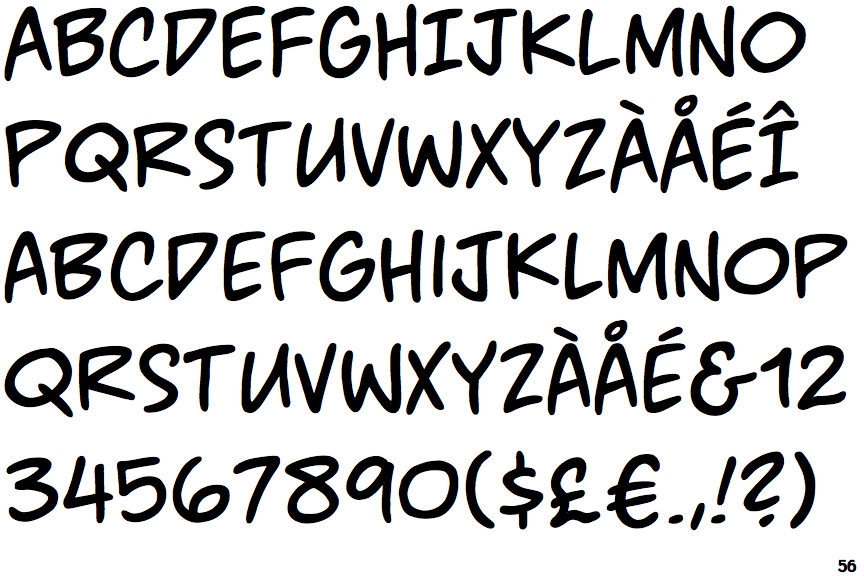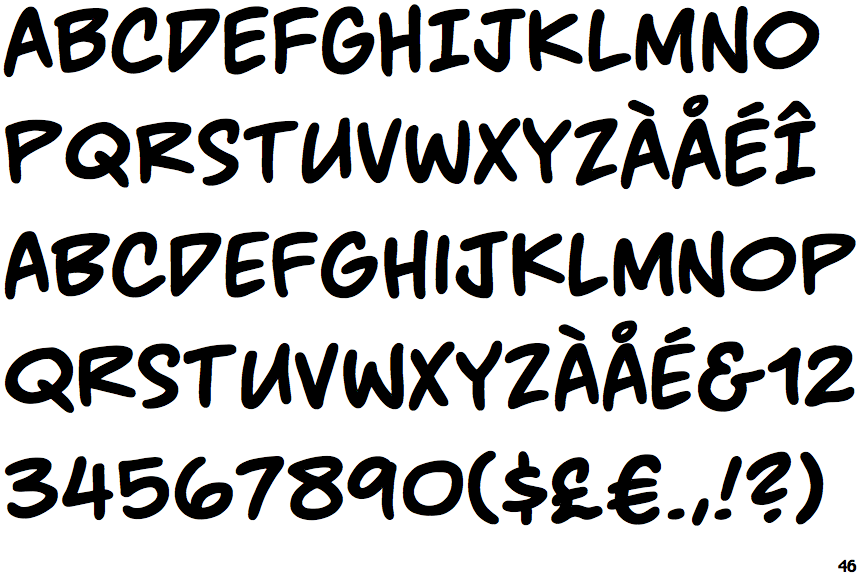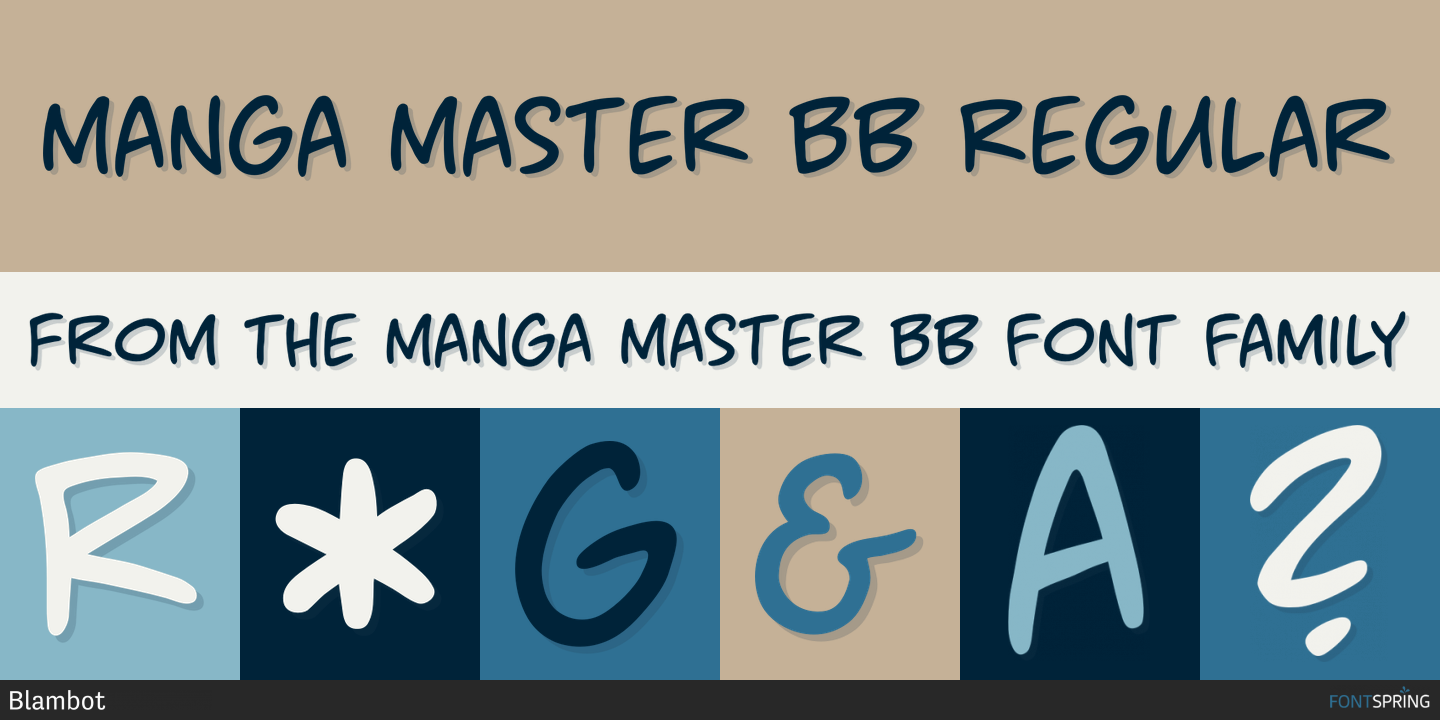
Manga Master Font
Manga master font. 7 matching requests on the forum. This typeface has four styles and was published by blambot. About this font family designed to complement most manga art styles without cliched brush calligraphy or faux kanji and still be versatile enough for almost any kind of comic art. The fonts and derivatives however cannot be released under any other type of licensedefinitionsfont software refers to any and all of the following font files data files source code build scripts documentationreserved font name refers to the font software name as seen by users and any other names as specified after the copyright.